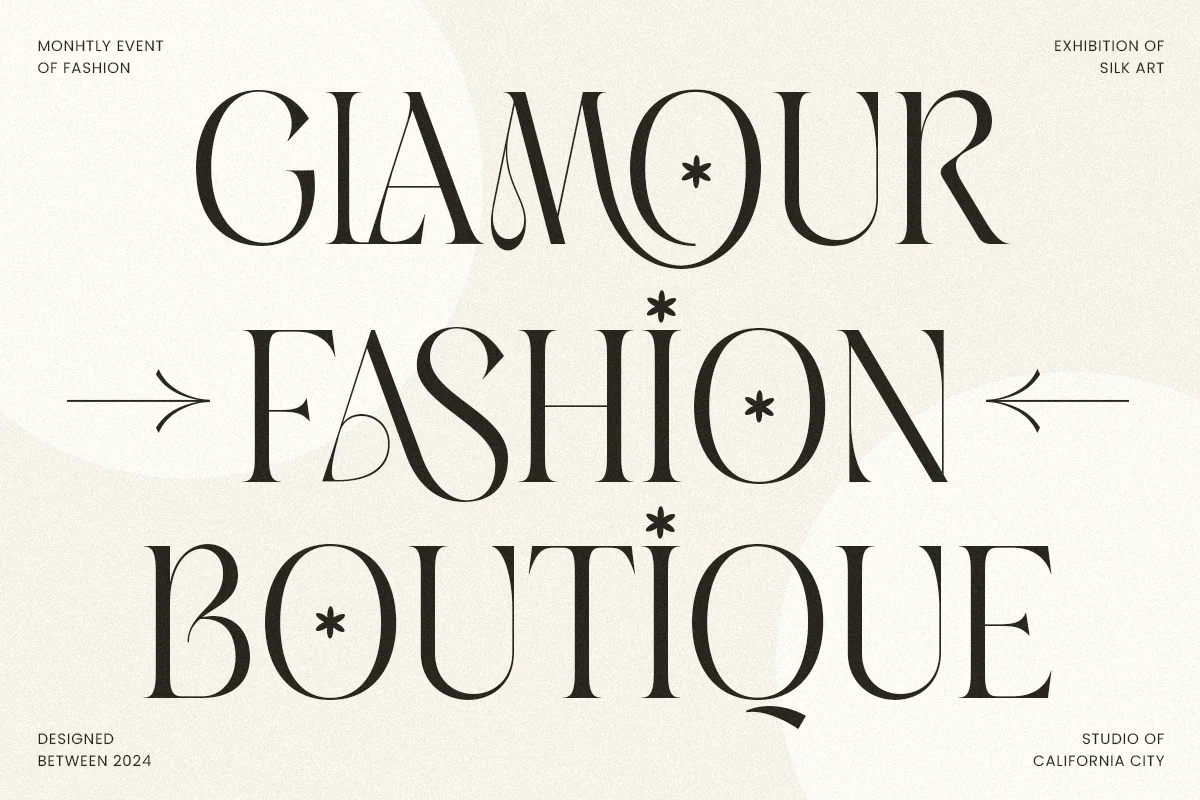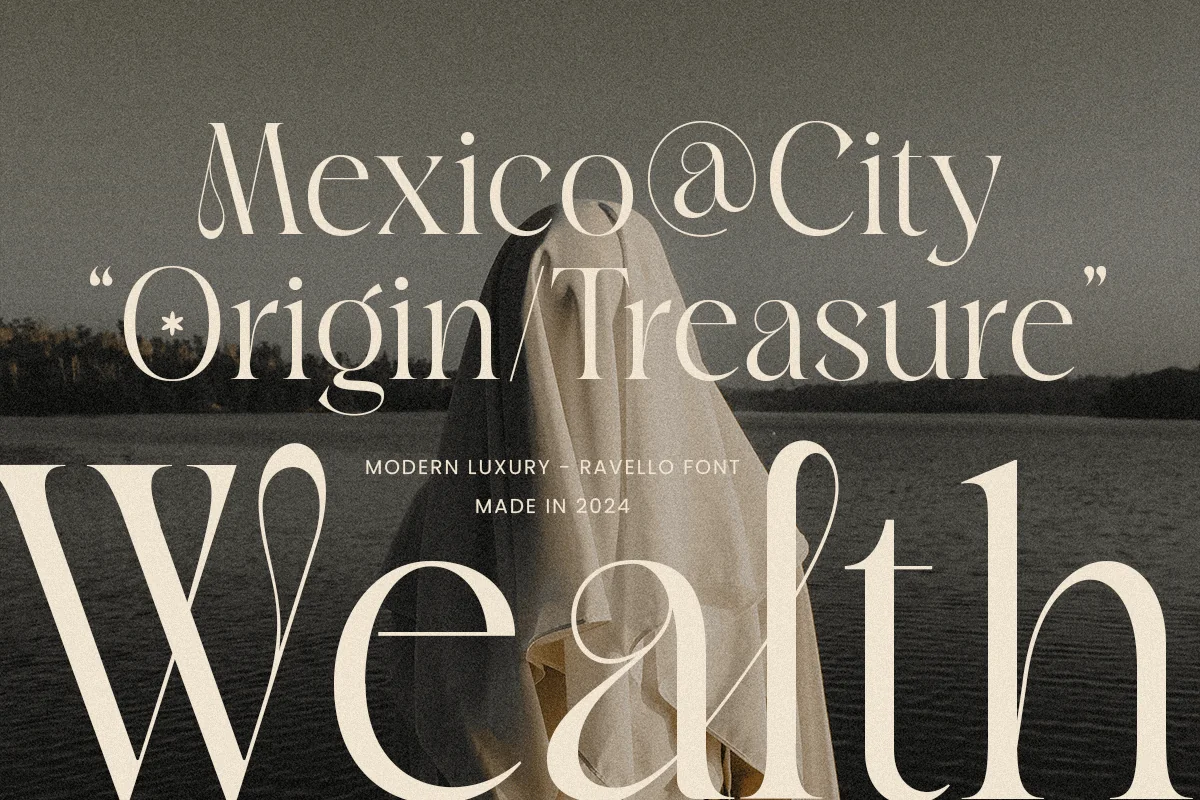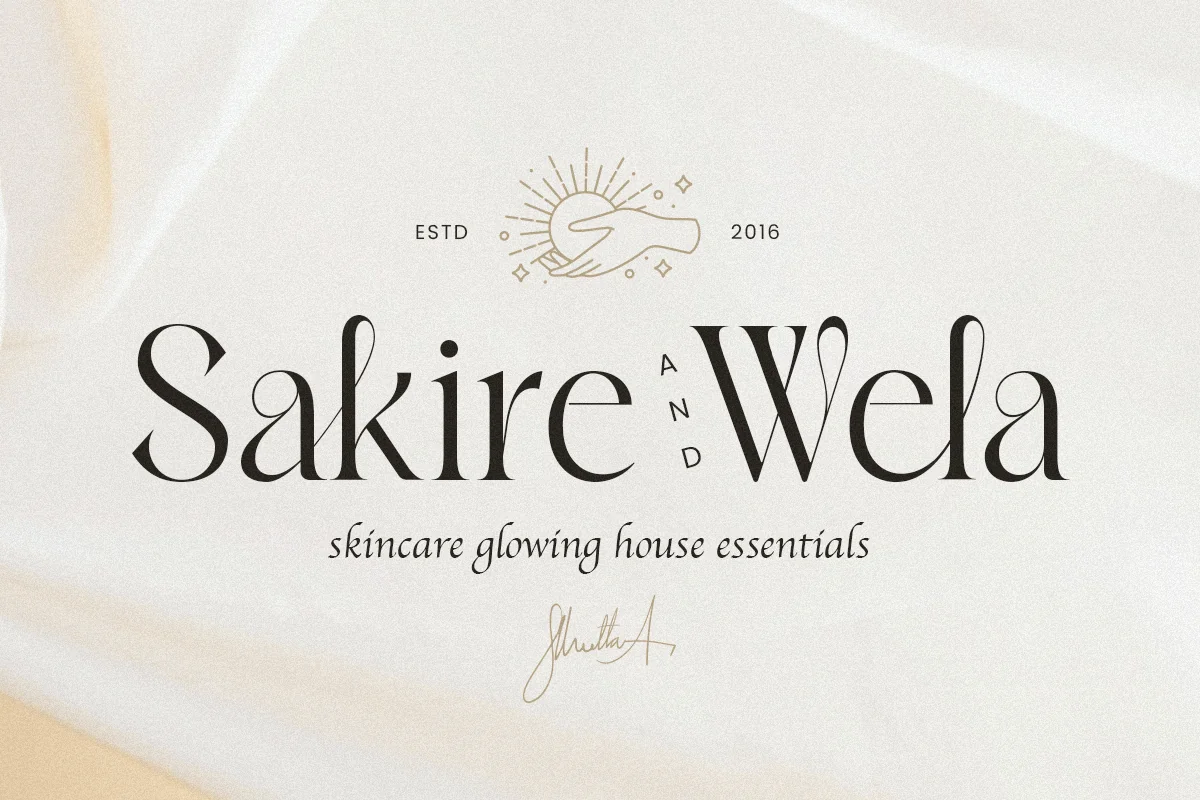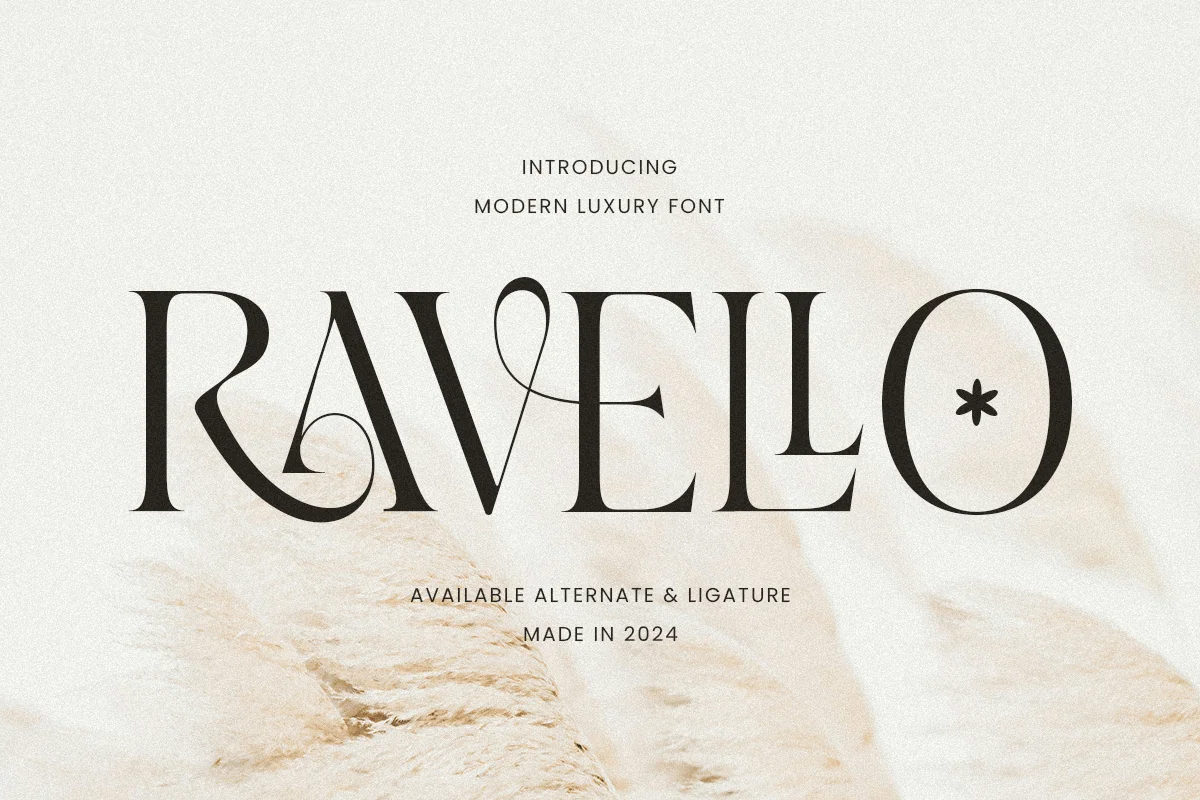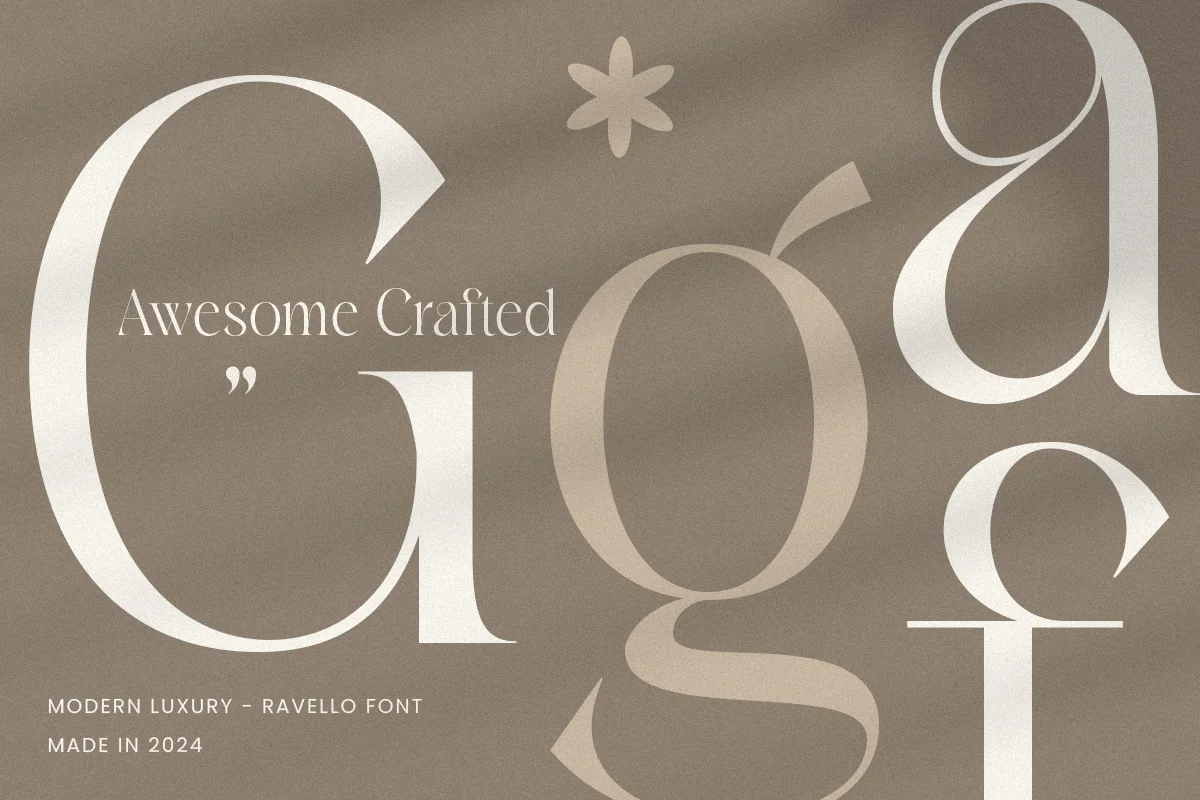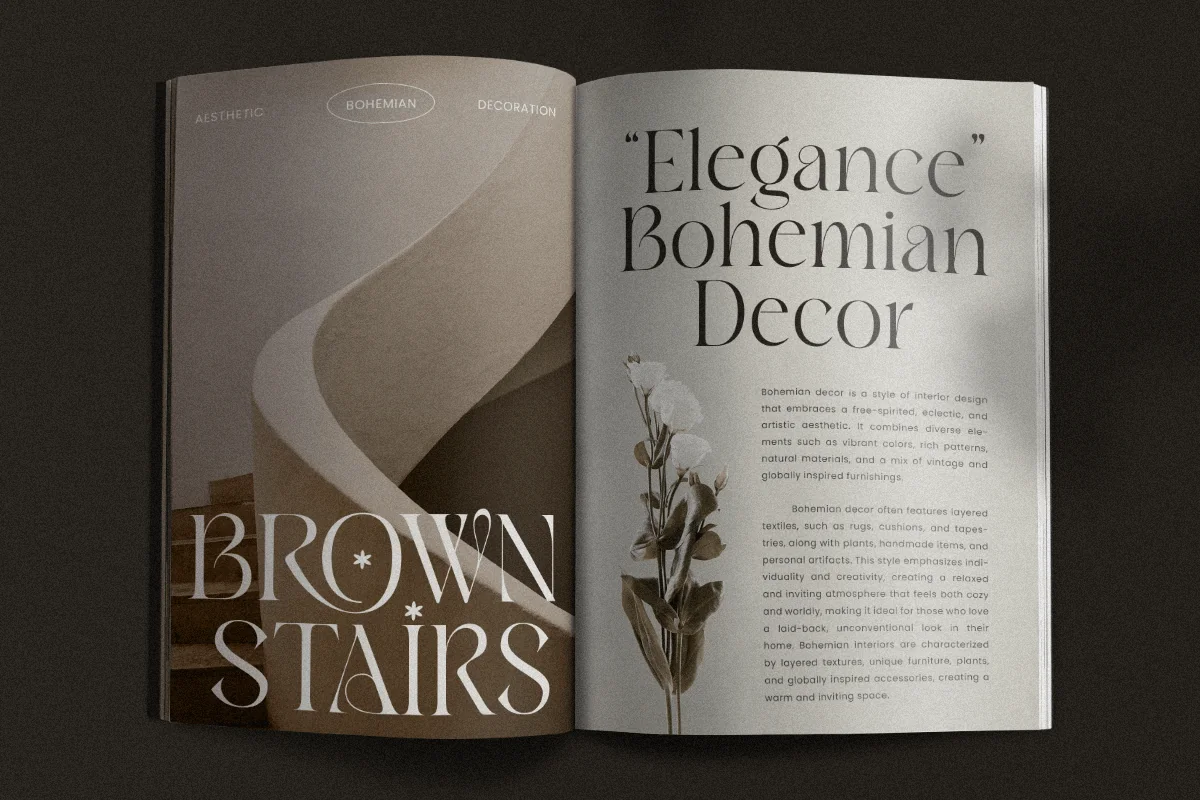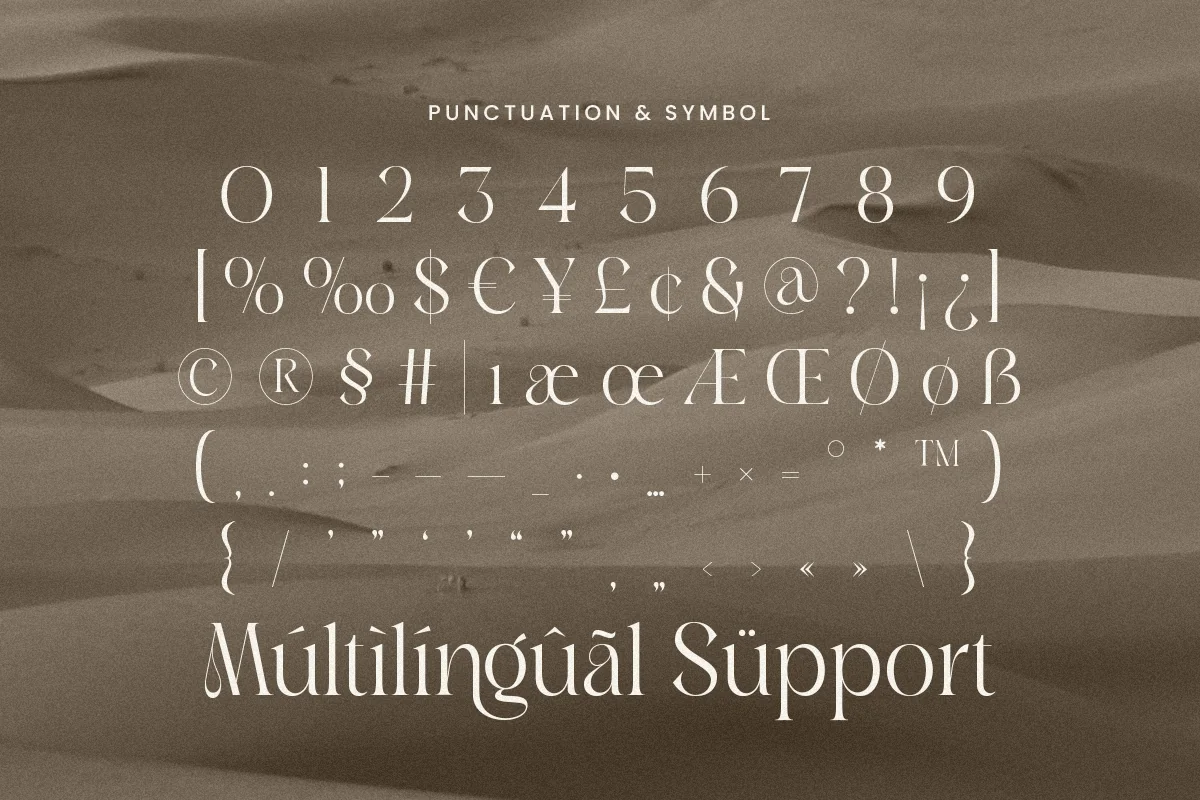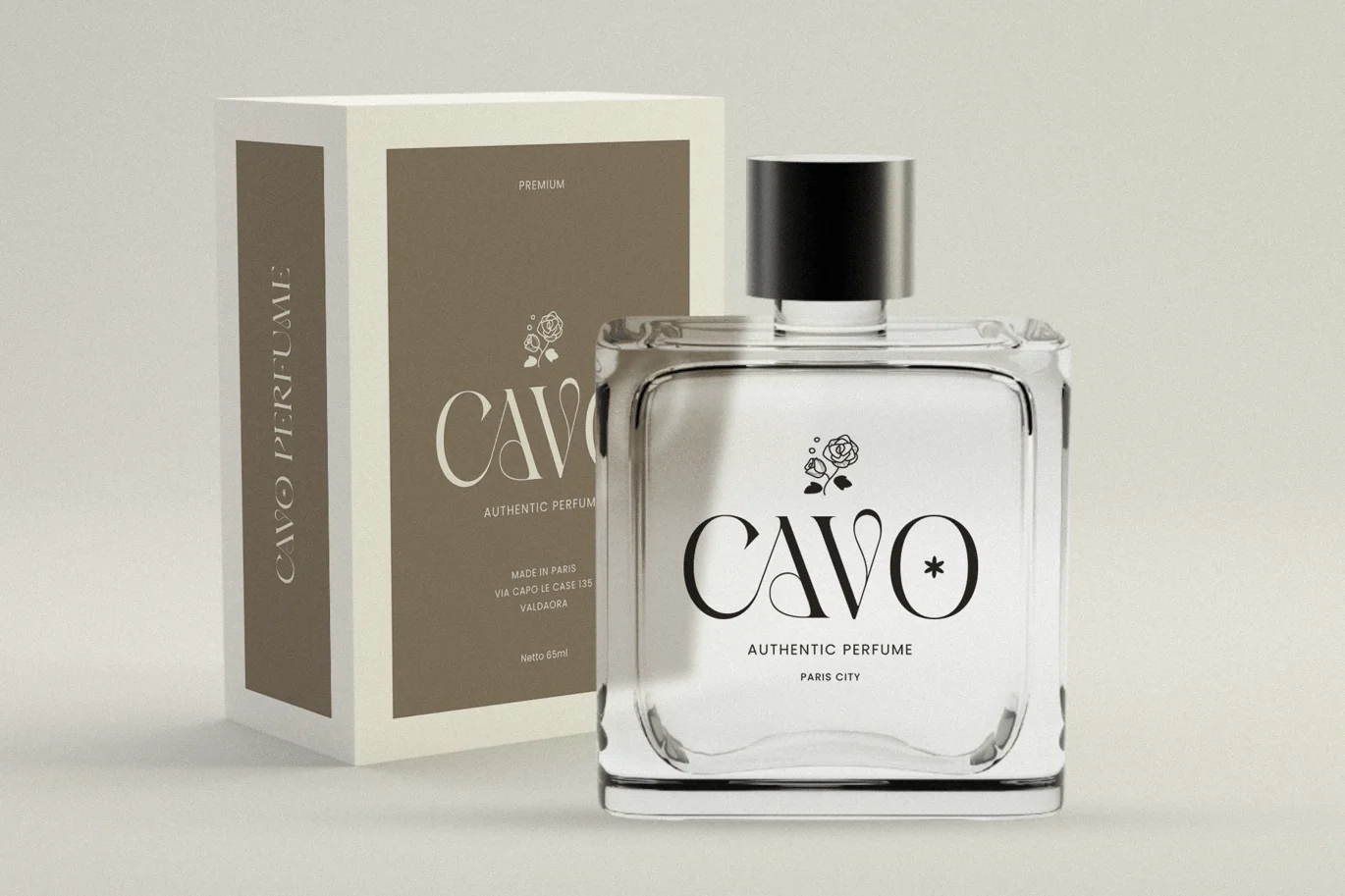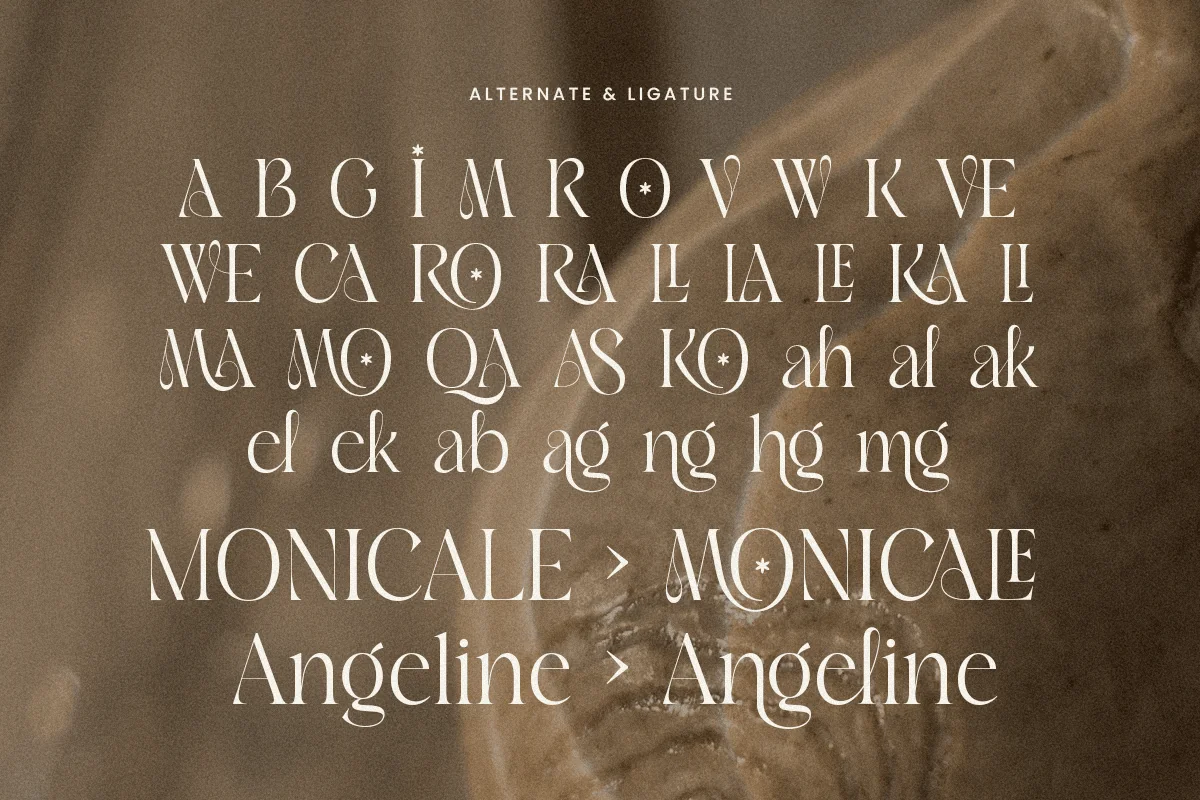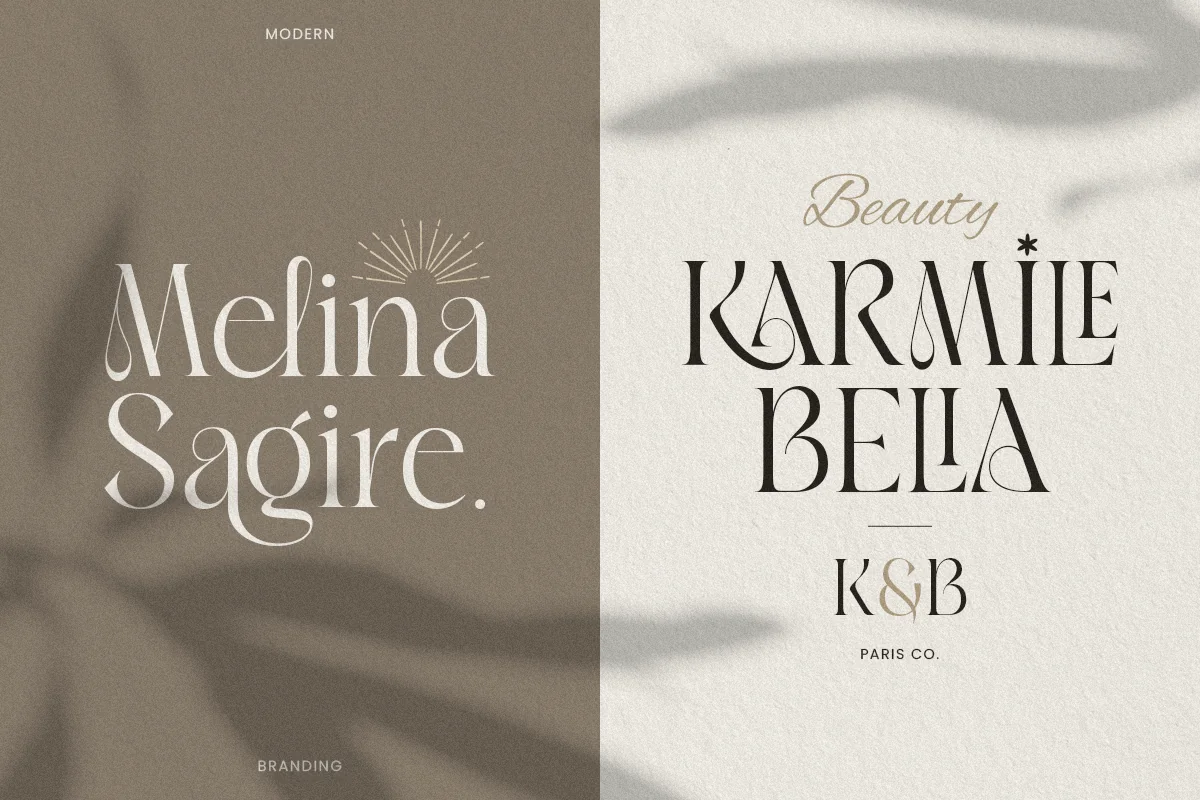
Ravello – Modern Luxury Font
Ravello is a refined, modern font created to bring a luxurious touch to your projects. With sleek lines and an elegant design, Ravello is crafted to meet the needs of high-end branding, chic logo design, and sophisticated visual storytelling. Each character has been expertly styled to showcase beauty and sophistication, making Ravello an ideal choice for exclusive brands and projects.
Inspired by contemporary aesthetics, Ravello effortlessly combines modern flair with timeless appeal. It is perfect for a wide range of applications, from fashion and beauty brands to editorial layouts and premium product packaging. This font embodies sophistication, allowing you to communicate a refined and memorable message. Elevate your designs with Ravello—a font that offers a versatile, polished look that will captivate audiences and set your work apart. Ideal for both print and digital use, Ravello is the ultimate font for achieving an upscale, professional aesthetic.
Ravello Modern Luxury Font Features:
- Sleek Ligature Characters Ready
Multilingual Characters available for:
Afrikaans, Albanian, Asu, Basque, Bemba, Bena, Breton, Chiga, Cornish, Dutch, English, Estonian, Filipino, Finnish, Friulian, Galician, German, Gusii, Indonesian, Irish, Italian, Kabuverdianu, Kalenjin, Kinyarwanda, Luo, Luxembourgish, Luyia, Machame, Makhuwa-Meetto, Makonde, Malagasy, Manx, Morisyen, North Ndebele, Nyankole, Oromo, Portuguese, Quechua, Romansh, Rombo, Rundi, Rwa, Samburu, Sango, Sangu, Scottish Gaelic, Sena, Shambala, Shona, Soga, Somali, Spanish, Swahili, Swedish, Swiss.